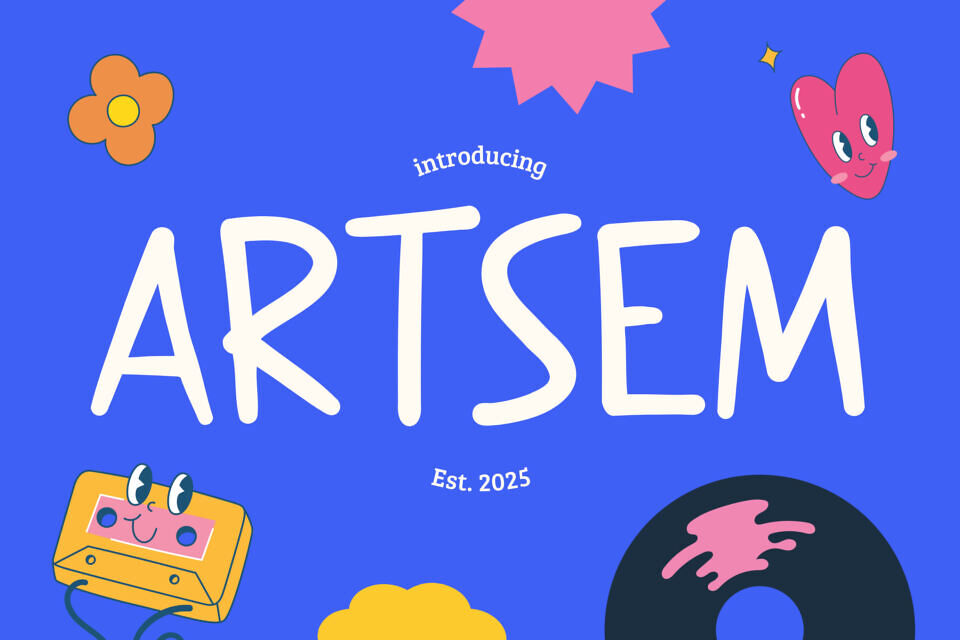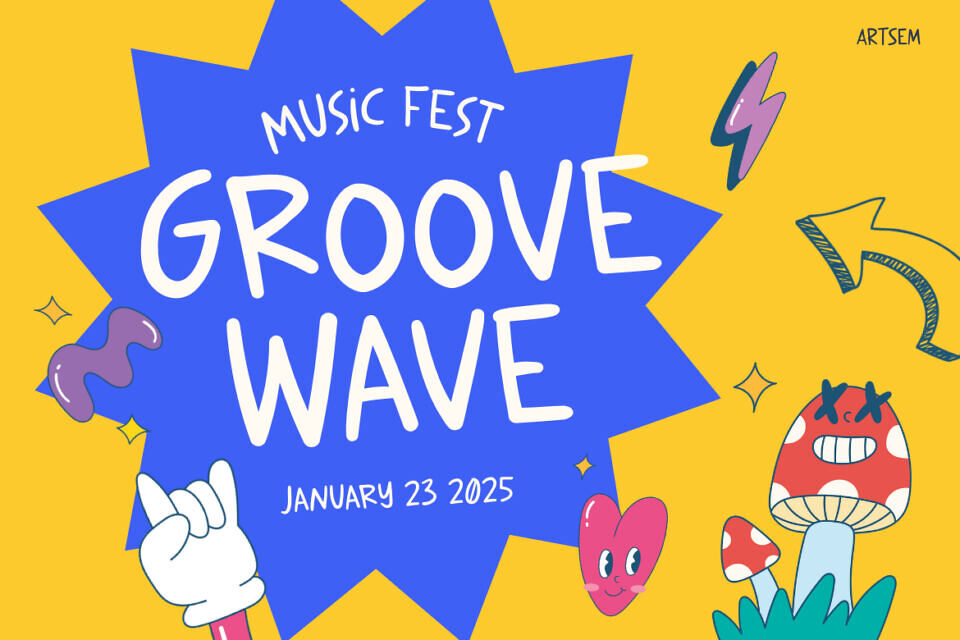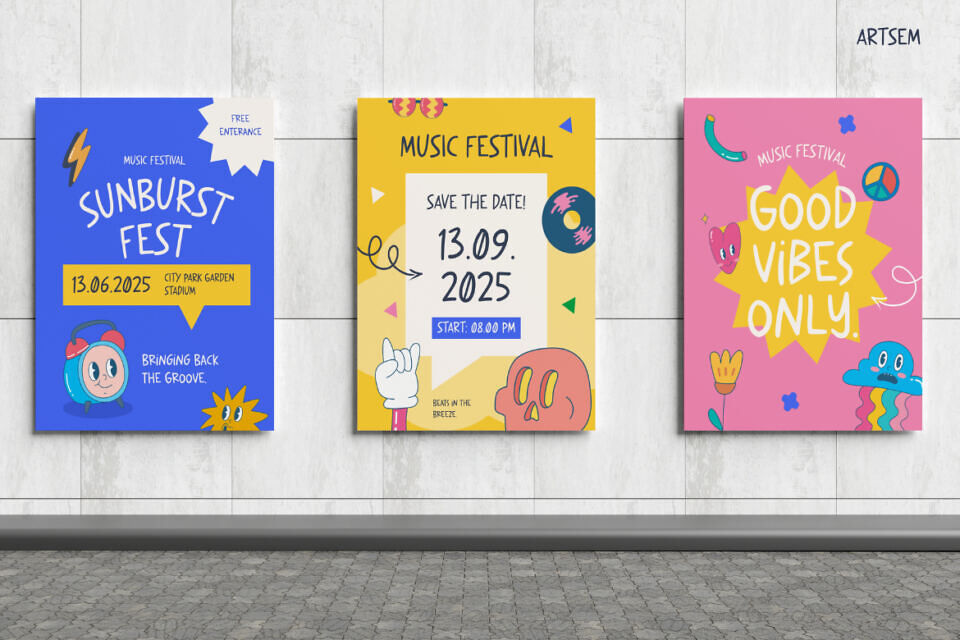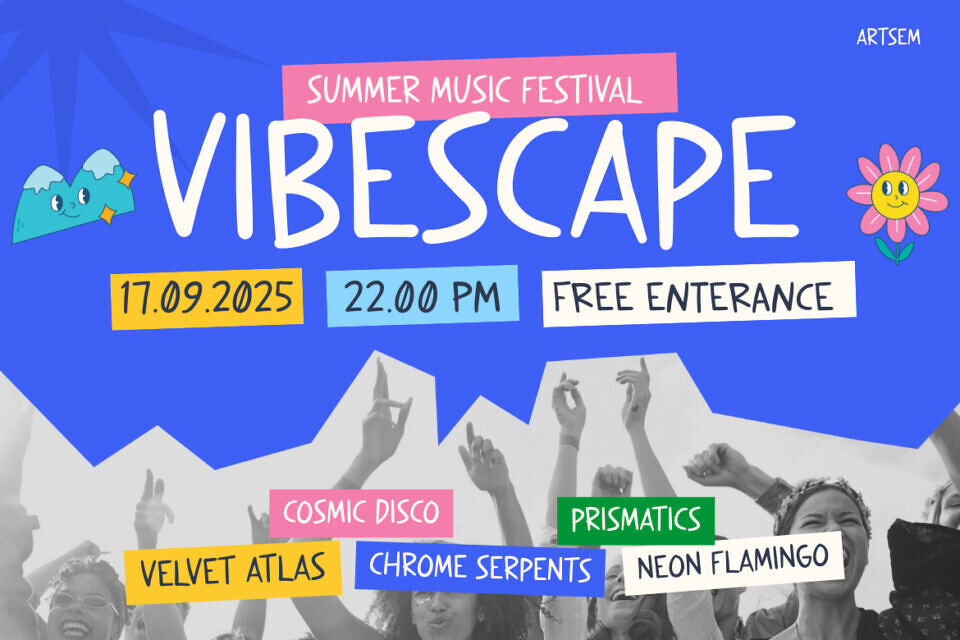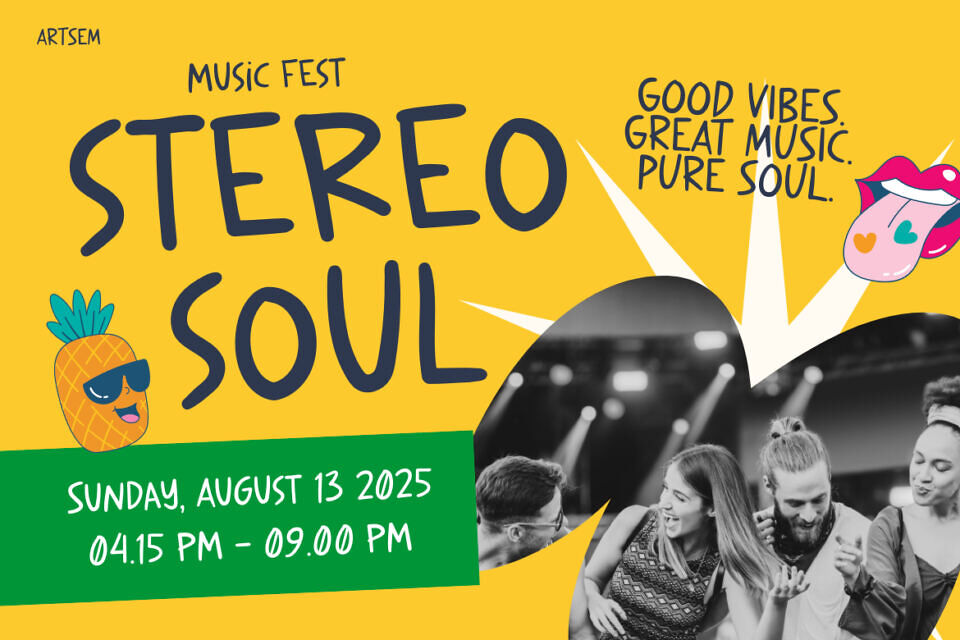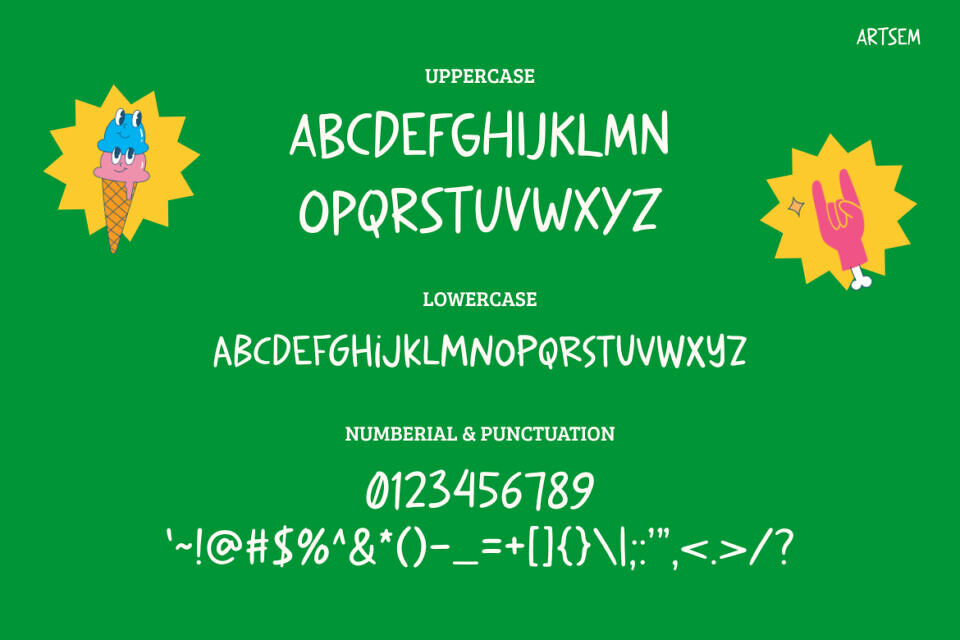
Artsem is a truly unique handwriting typeface that instantly adds playful energy and bold creativity to your projects. Unlike standard fonts, it combines a handcrafted feel with artistic balance, making every letter look natural yet impactful.
Moreover, its vibrant strokes, rounded edges, and expressive details ensure your design feels both professional and approachable. Therefore, it works perfectly for posters, banners, music festivals, or any project that requires strong visual identity.